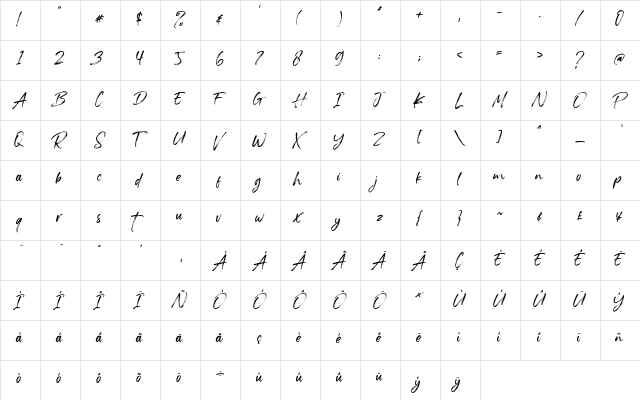
Rocksill Regular
Design Context for Rocksill Typeface
Rocksill is a composed and adaptable typeface that performs quietly and consistently across a wide range of design contexts.